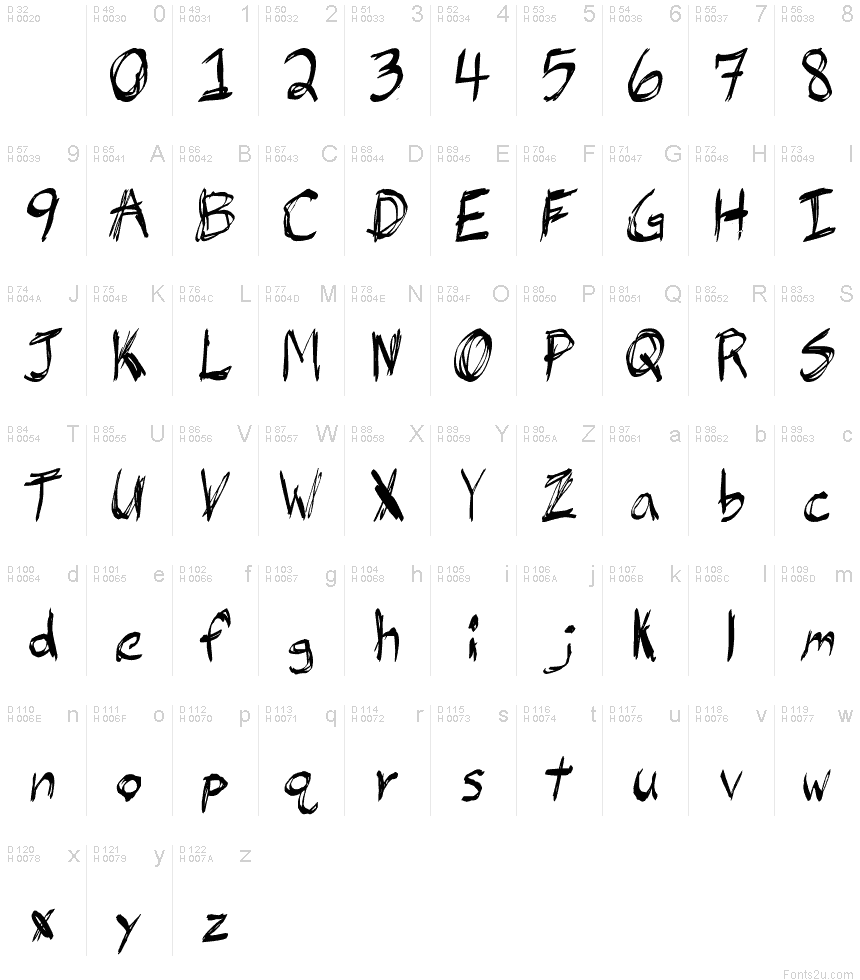
jb_hell
JB Hell font by Julie Bush is a free grunge brush script typeface that looks like it’s been dragged across the page with a half-dry marker. Letters slash upward with scratchy, ink-splattered strokes and uneven shapes that feel raw and a little unhinged, like frantic handwriting on a bathroom wall. The loose spacing and jagged rhythm give every word a nervous energy that jumps off dark backgrounds.
This free font shines on horror covers, punk gig posters, underground flyers, zines, Halloween graphics, and glitchy social posts where you want things to feel chaotic and hand-made. Using jb_hell large and in short phrases lets the rough texture stay legible; pair it with a clean, narrow sans serif for body copy to keep the wildness under control.